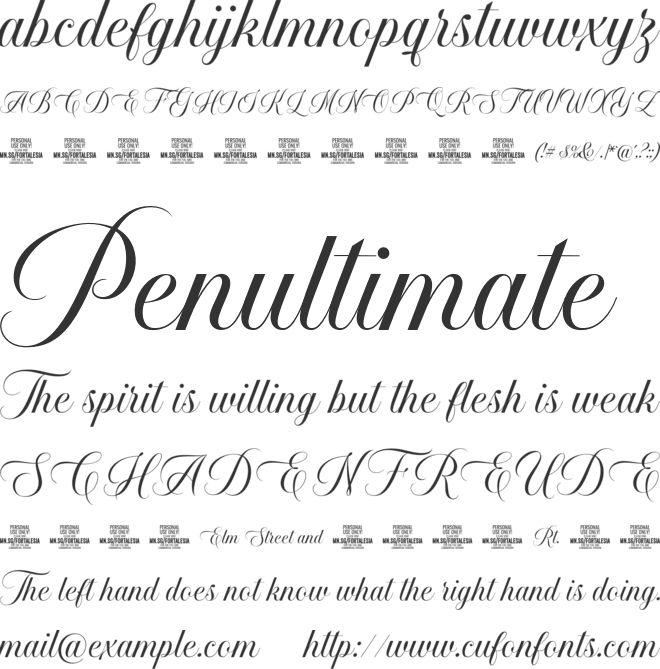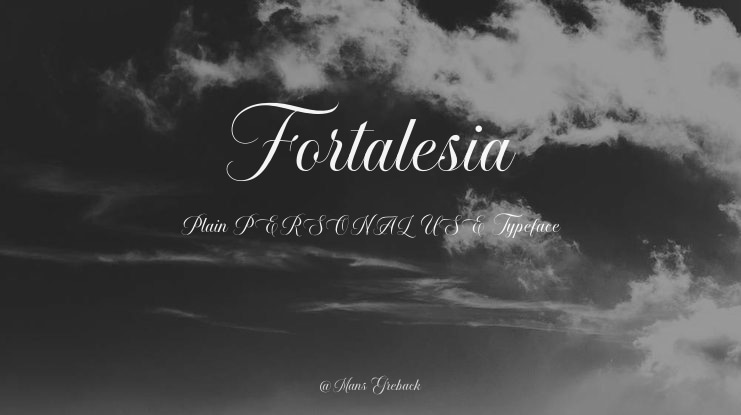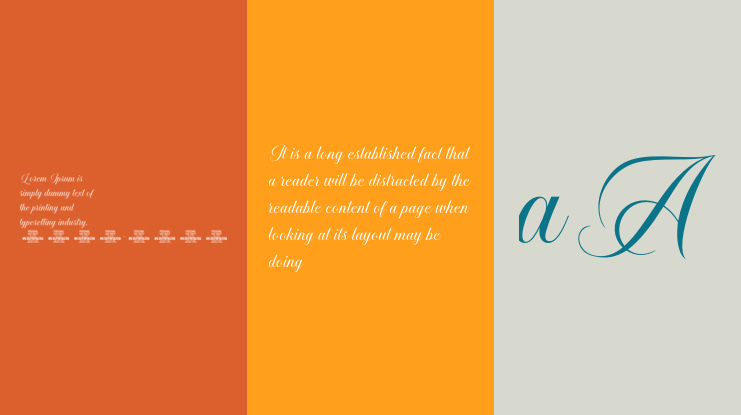
Fortalesia Plain PERSONAL USE Font Family
Mans Greback
NOTE: This font is for PERSONAL USE ONLY!To purchase a commercial license, visit:https://www.mansgreback.com/product/fortalesia-scriptFortalesia Script is a flourish-rich calligraphy typeface, designed with elegance and flair. The capital letters sweep into wide, expressive loops.For questions, please visit https://mansgreback.com/faq